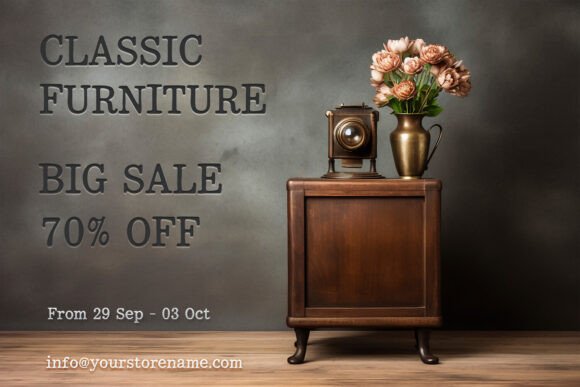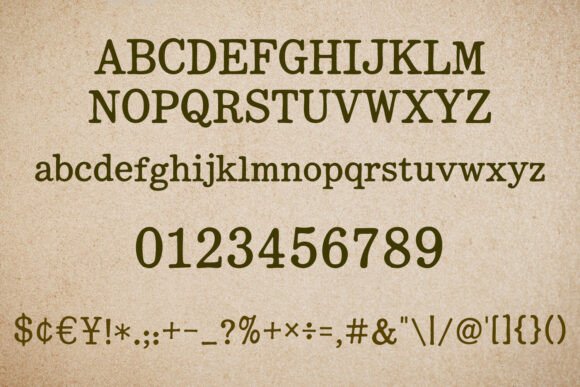
Keyclack Font
Keyclack is a vintage typewriter-style font that brings the iconic sound and feel of old-school typing into your digital designs. With its monospaced structure, bold serifs, and slightly distressed ink texture, Keyclack captures the charm of classic typebars with modern usability.
It includes uppercase and lowercase letters, numbers, punctuation, currency symbols, and special characters — making it perfect for retro posters, editorial layouts, branding, book titles, and nostalgic print effects. Add timeless character to your projects with the authentic mechanical flair of Keyclack.